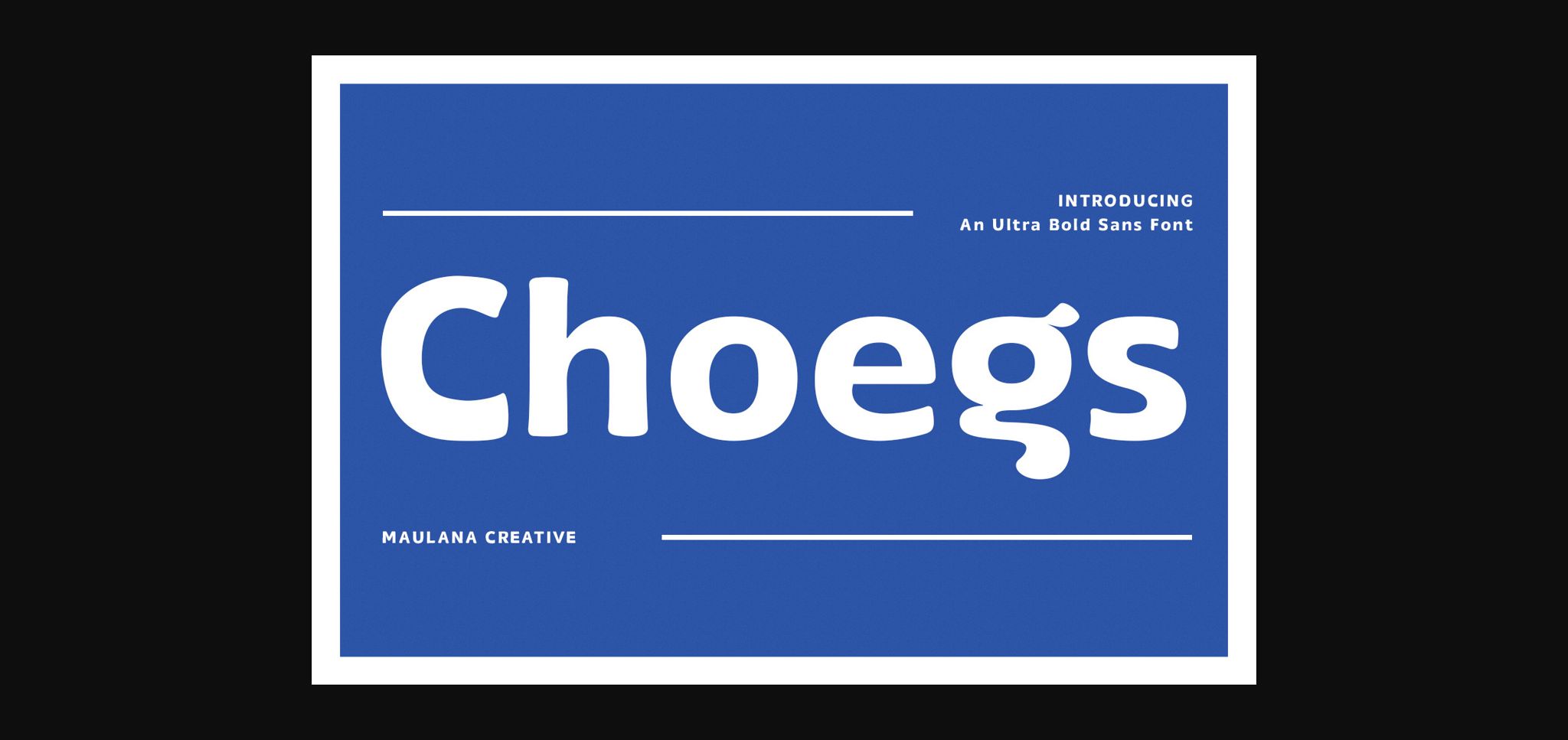
About Choegs Font
Choegs is a sleek yet fun sans serif font. No matter the topic, this font will be an incredible asset to your fonts’ library, as it has the potential to elevate any creation.